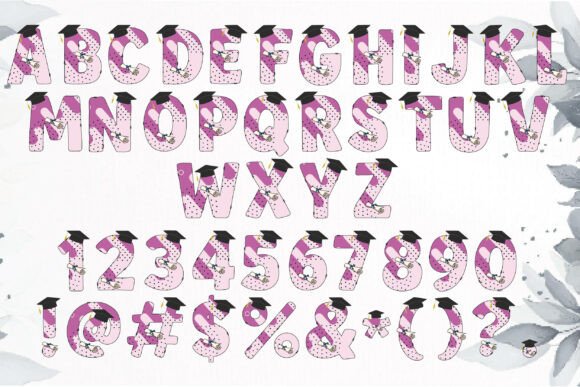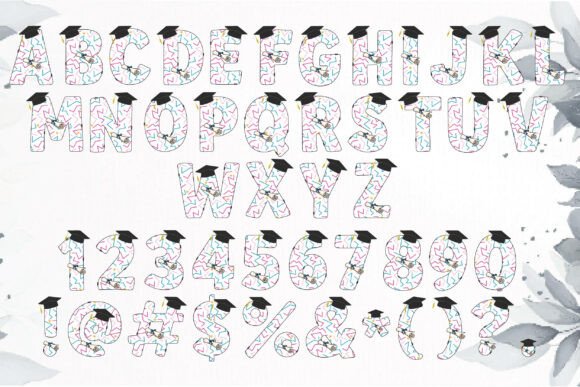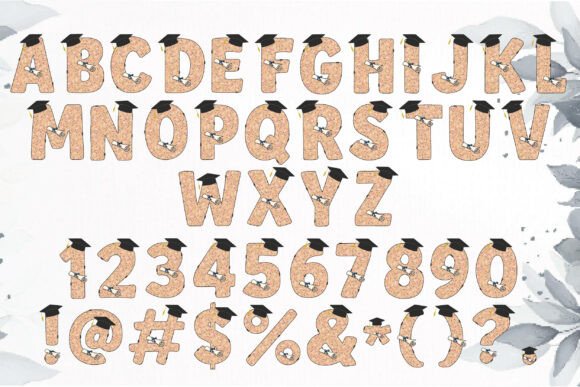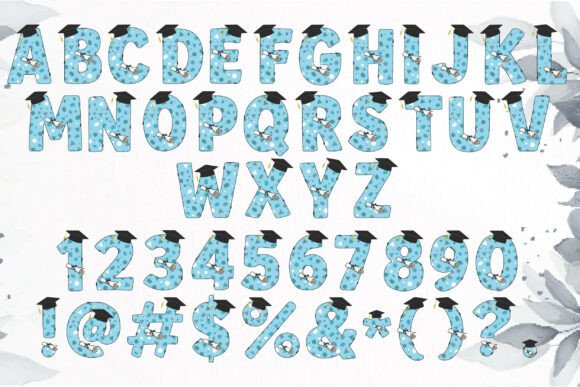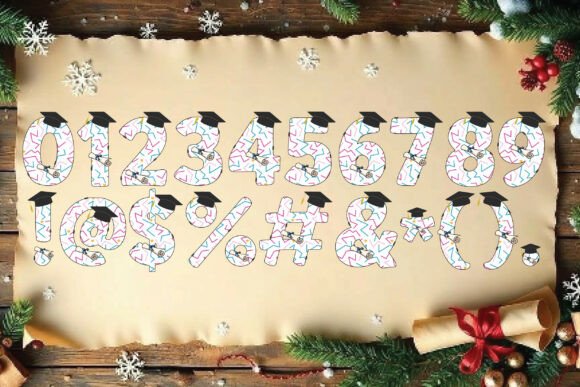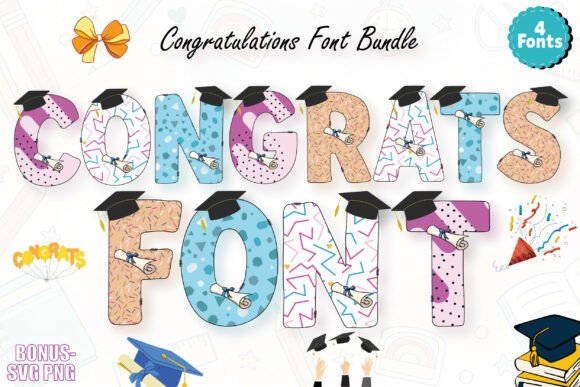
Celebrate in Style with Congratulations Colorful Alphabets Font
Are you looking for a fun and stylish way to add a pop of color to your designs? Look no further than the Congratulations Colorful Alphabets Font! This vibrant and decorative font is perfect for creating eye-catching celebration designs, school projects, and creative crafts. In this article, we’ll dive into the features and benefits of this amazing font, and explore the many ways you can use it to elevate your designs.
A Font that’s Full of Color and Life
The Congratulations Colorful Alphabets Font is designed to add a cheerful and modern touch to any design. Its colorful decorative style is sure to grab attention and make your projects stand out. Whether you’re creating invitations, posters, classroom projects, or sublimation designs, this font is the perfect choice. With its unique and playful style, you’ll be able to add a personal touch to your designs that will leave a lasting impression.
This versatile font is suitable for a wide range of projects, including:
- Congratulations designs: Create stunning congratulations cards, posters, and invitations with this beautiful font.
- School and classroom projects: Add a pop of color and fun to your school projects, presentations, and classroom decorations.
- Party invitations: Make your party invitations stand out with this colorful and playful font.
- T-shirt and merch designs: Create eye-catching designs for t-shirts, mugs, and other merchandise.
- Sublimation projects: Use this font to create stunning sublimation designs for ceramics, glass, and other materials.
- Posters and presentations: Add a professional touch to your posters and presentations with this modern and stylish font.
- Printable designs: Create beautiful printable designs, such as planners, journals, and wall art.
Why Choose Congratulations Colorful Alphabets Font?
So, why should you choose this font for your designs? Here are just a few reasons:
- Unique and playful style: This font has a one-of-a-kind style that’s sure to grab attention and add a personal touch to your designs.
- Versatile: Use this font for a wide range of projects, from congratulations designs to school projects and party invitations.
- Colorful and modern: Add a pop of color and a modern touch to your designs with this vibrant font.
Tips and Tricks for Using Congratulations Colorful Alphabets Font
Here are a few tips and tricks for getting the most out of this amazing font:
- Experiment with colors: Try out different color combinations to see what works best for your design.
- Mix and match: Combine this font with other fonts and design elements to create a unique look.
- Use it for headings and titles: This font is perfect for headings and titles, adding a pop of color and emphasis to your designs.
- Don’t be afraid to get creative: This font is designed to be fun and playful, so don’t be afraid to experiment and try new things!